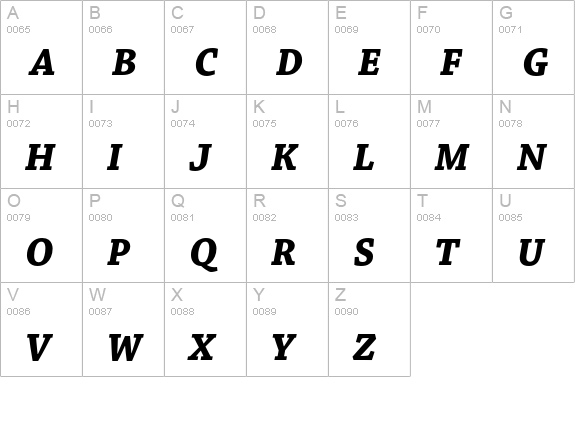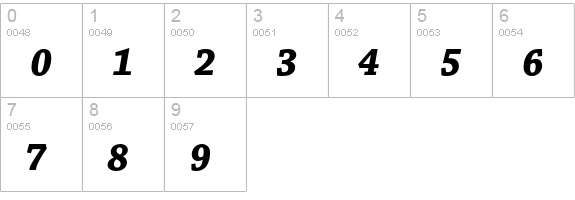
Chaparral Pro Bold Italic Caption Font Details
Chaparral Pro Bold Italic Caption is a strong, high-contrast, italic variant in the Chaparral typeface family \xE2\x80\x94 well suited to headlines, attention-grabbing titles, and strong calls-to-action.
Chaparral Pro Bold Italic Caption font is a dynamic and versatile typeface that exudes sophistication and modernity. With its bold and italicized design, this font is perfect for adding emphasis and style to any project. Whether you're creating a striking headline or crafting a sleek logo, Chaparral Pro Bold Italic Caption font is sure to make a lasting impression. Best of all, this font is available for free download at FontsMarket.com. Don't miss out on the opportunity to enhance your designs with this stunning typeface. Download Chaparral Pro Bold Italic Caption font today and elevate your creative projects to new heights.